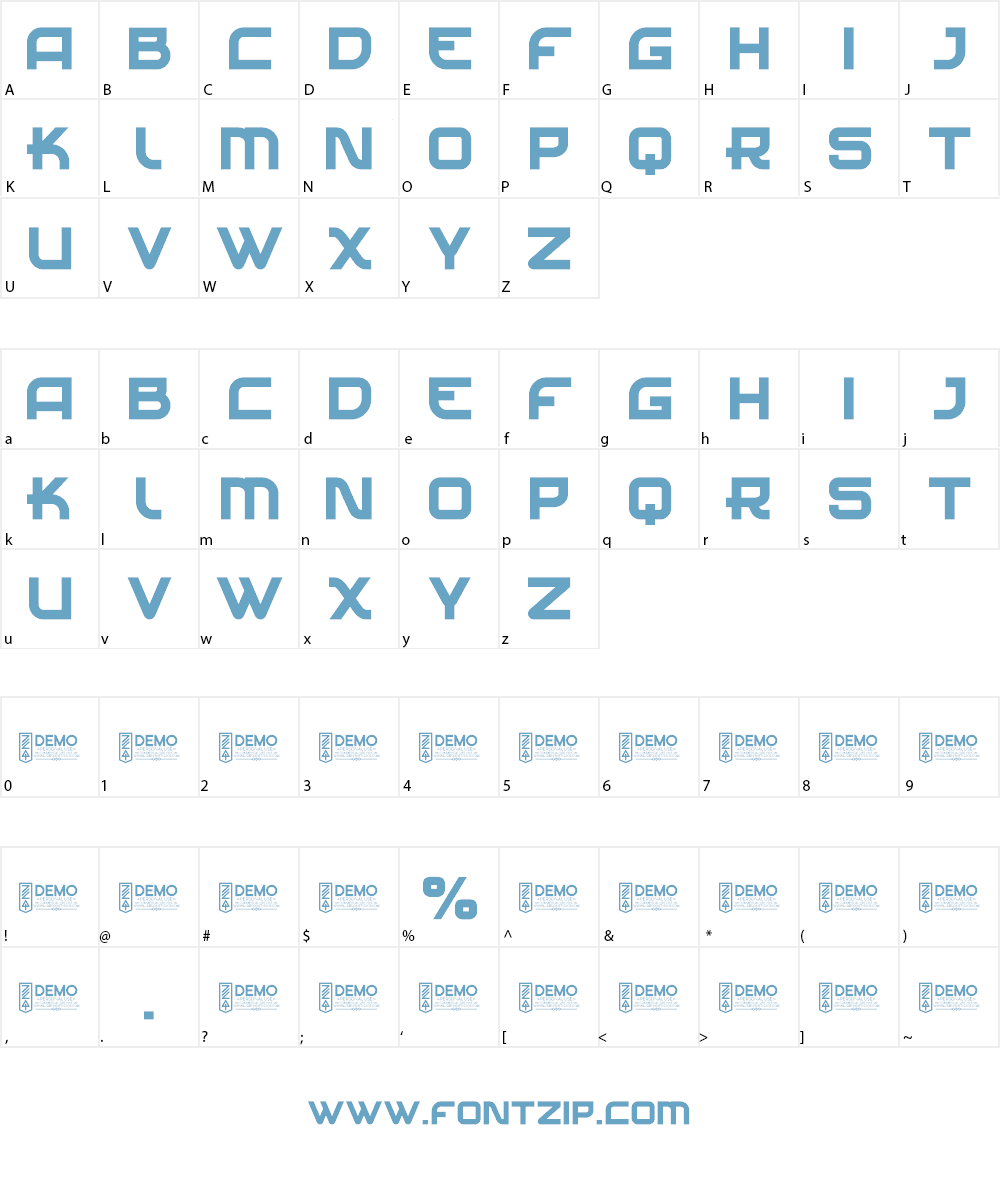
PERSONAL USE /// Zilap Destiny - It's a typographic project full of personality, perfect for
Futuristic and modern uses.
It is a versatile typeface that adapts to the needs.
Graphics of each job.